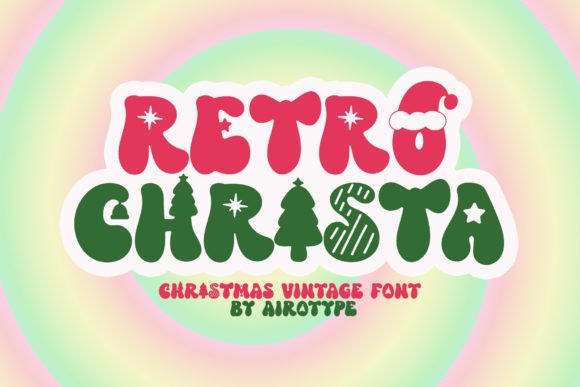
Are you ready to take your holiday projects to the next level? Look no further than Retro Christa Font, the perfect addition to your collection of Best Fonts for Vintage Design. Created by airotype, this cute and retro-style Christmas-themed display font is here to bring a touch of nostalgia and holiday cheer to your designs.
With Retro Christa Font, you can capture the essence of the holiday season and create captivating visuals that will leave a lasting impression. Its unique and eye-catching design will instantly transport your audience back in time, evoking feelings of warmth, joy, and childhood memories.
Imagine the possibilities this font unlocks for your festive projects. From greeting cards and invitations to posters and social media graphics, Retro Christa Font will infuse your designs with a sense of whimsy and charm. It's the perfect tool to add a dash of vintage flair to your holiday branding, allowing you to stand out from the crowd and leave a lasting impression.
But Retro Christa Font is not just about aesthetics. Its versatility and ease of use make it a must-have for designers of all skill levels. Whether you're a seasoned professional or just starting out, this font offers a seamless experience, allowing you to focus on unleashing your creativity without any technical roadblocks.
The attention to detail in Retro Christa Font is truly remarkable. Each letter is meticulously crafted to capture the spirit of Christmas, with delicate swirls and playful curves that add a touch of elegance to your designs. It's a font that not only looks good but also tells a story, inviting your audience to immerse themselves in the magic of the holiday season.
When you choose Retro Christa Font, you're not just getting a font; you're getting a tool that will elevate your designs and make them unforgettable. Its wide range of characters and glyphs ensure that you have everything you need to bring your visions to life. Let your creativity run wild as you mix and match different styles and create truly unique compositions that leave a lasting impression.